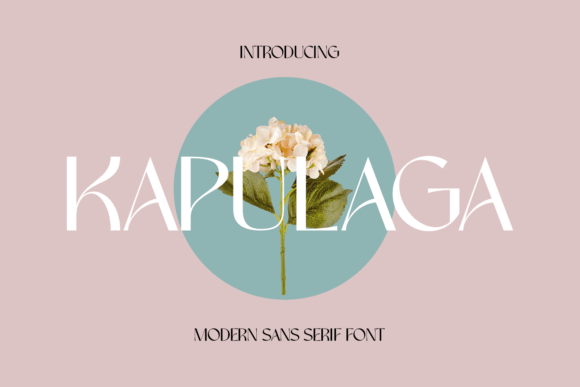
Introducing Kapulaga Font, the captivating sans serif font that will transform your designs into mesmerizing masterpieces. With its sophisticated and effortlessly elegant curves, Kapulaga embodies the essence of modern typography, making it the perfect choice for discerning creatives seeking to make a lasting impression.
Immerse yourself in the world of Kapulaga, where simplicity meets sophistication. Its clean lines and minimalist aesthetic create a timeless appeal that effortlessly complements a wide range of design styles. Whether you're crafting enchanting wedding invitations, designing captivating social media posts, or captivating magazine covers, Kapulaga will elevate your creations to new heights of visual allure.
Experience the versatility of Kapulaga, a font that adapts seamlessly to your every need. Its adaptability shines in both digital and print formats, making it the ideal choice for a multitude of projects. From captivating book covers that draw readers in to alluring logos that leave a lasting impact, Kapulaga empowers you to unleash your creativity and make a statement with every design.
Indulge in the beauty of Kapulaga's harmonious curves and impeccable spacing. Each character is meticulously crafted to ensure effortless readability, creating a captivating experience for your audience. Whether you're crafting elegant wedding invitations or captivating social media posts, Kapulaga guarantees that your message will be conveyed with clarity and grace.
Step into the world of Kapulaga Font and discover the boundless possibilities it holds for your creative endeavors. With its captivating elegance, unparalleled versatility, and meticulous attention to detail, Kapulaga is the font that will ignite your imagination and empower you to create designs that captivate and inspire. Experience the magic of Kapulaga today and elevate your designs to extraordinary heights.